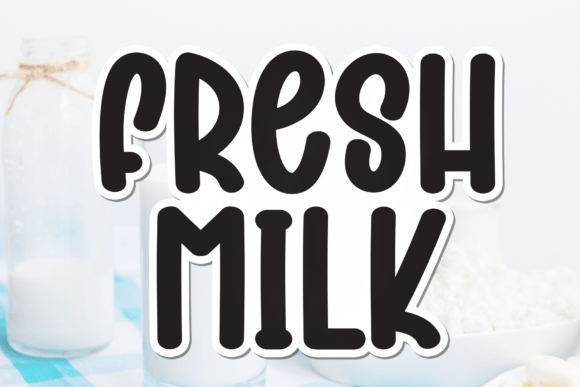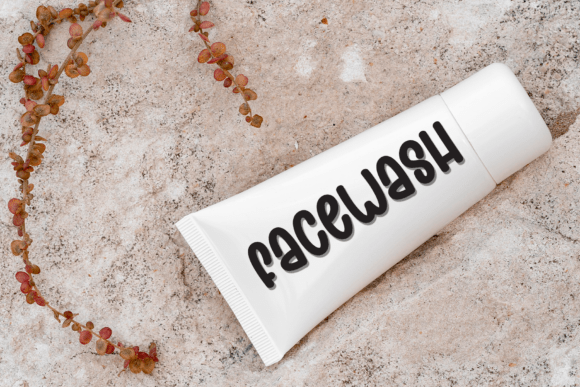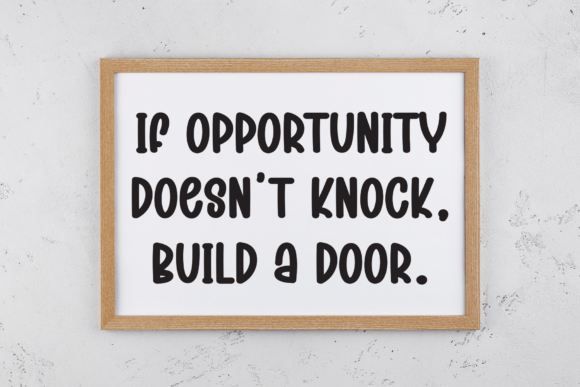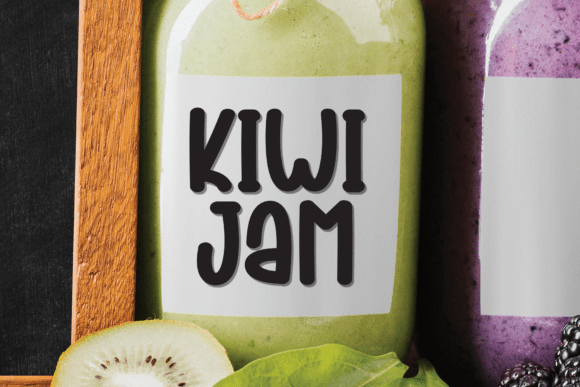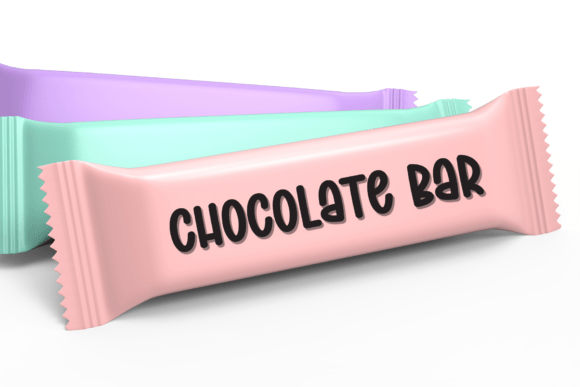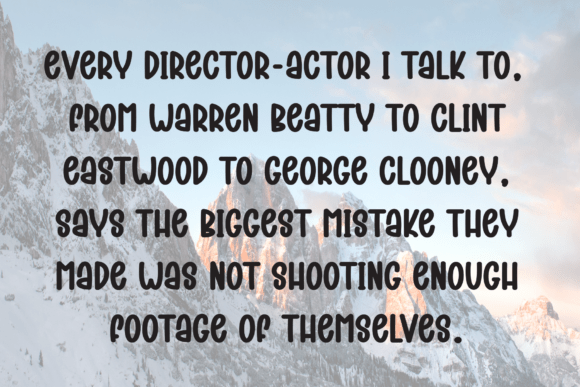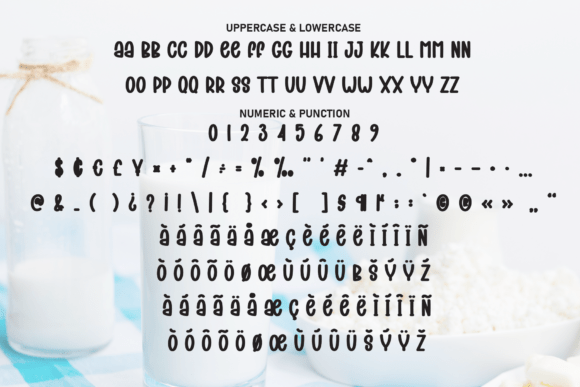
Discover the Creamy Charm of Fresh Milk Font
As designers, we’ve all been there – staring at a blank page, trying to find the perfect font to bring our creative vision to life. For me, it was a late-night brainstorming session, pouring over font styles on my computer, when I stumbled upon Fresh Milk Font. Its playful, hand-drawn feel instantly captured my attention, and I knew I had to learn more.
Created with a focus on legibility and whimsy, Fresh Milk Font is a versatile display font perfect for product packaging, dairy branding, children’s books, and lifestyle content. Its soft curves and fun, rounded letters make it an ideal choice for designers looking to add a touch of warmth and personality to their projects.
What sets Fresh Milk Font apart is its ability to evoke a sense of freshness and approachability, making it a valuable asset for designers seeking to create engaging, memorable designs. Whether you’re working on a branding project or a children’s book, Fresh Milk Font is sure to bring a smile to your face and a touch of magic to your designs.
- Unique Characteristics: The font features a unique, hand-drawn aesthetic with subtle texture and imperfections, giving it a distinctive and organic feel.
Designer Review: Fresh Milk Font
As a designer, I was initially drawn to Fresh Milk Font’s unique and modern aesthetic. The font’s ✨ fluid curves and soft edges give it a friendly and approachable feel that would be perfect for branding and packaging designs. The font is also highly versatile, working well in both digital and print formats.
The font’s character set is extensive, covering a wide range of languages, including Latin, Cyrillic, and Greek. This makes it a great option for global brands looking to establish a consistent visual identity.
- Unique and modern aesthetic
- Fluid curves and soft edges
- Highly versatile
- Extensive character set
- ⚠️ Some characters may not be as detailed or refined as others
- ⚠️ May not be suitable for formal or traditional designs
Overall, I think Fresh Milk Font is a solid choice for designers looking for a modern and approachable font. While it may have some limitations, its unique aesthetic and versatility make it a great option for a wide range of projects.
Lato is a modern sans-serif font that is highly versatile and suitable for a wide range of designs, from corporate to creative projects. It’s particularly great for headings and titles due to its clean and elegant appearance. Lato is a great alternative to Fresh Milk Font when you need a more professional and sophisticated look.
Comparison: Lato has a more geometric and refined feel compared to Fresh Milk Font’s playful and casual vibe. While both fonts are modern and sans-serif, Lato is more suited for formal designs, whereas Fresh Milk Font is better for casual and creative projects.